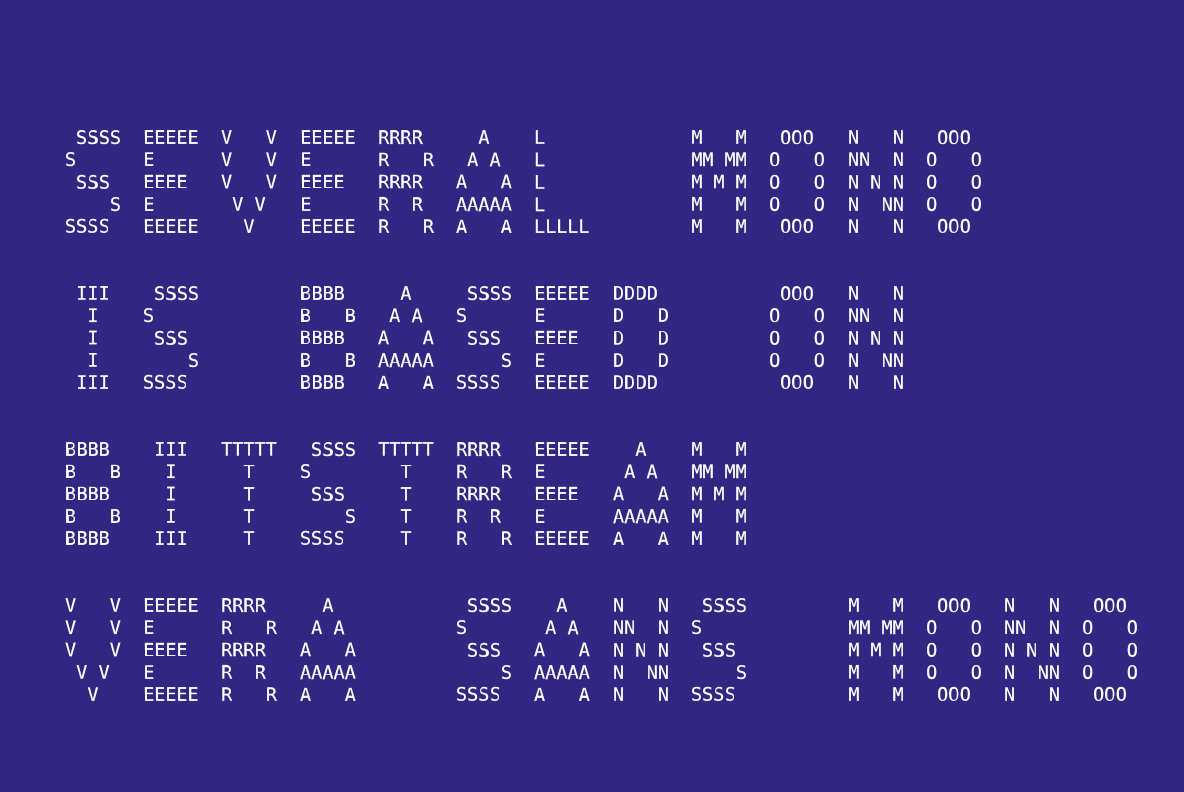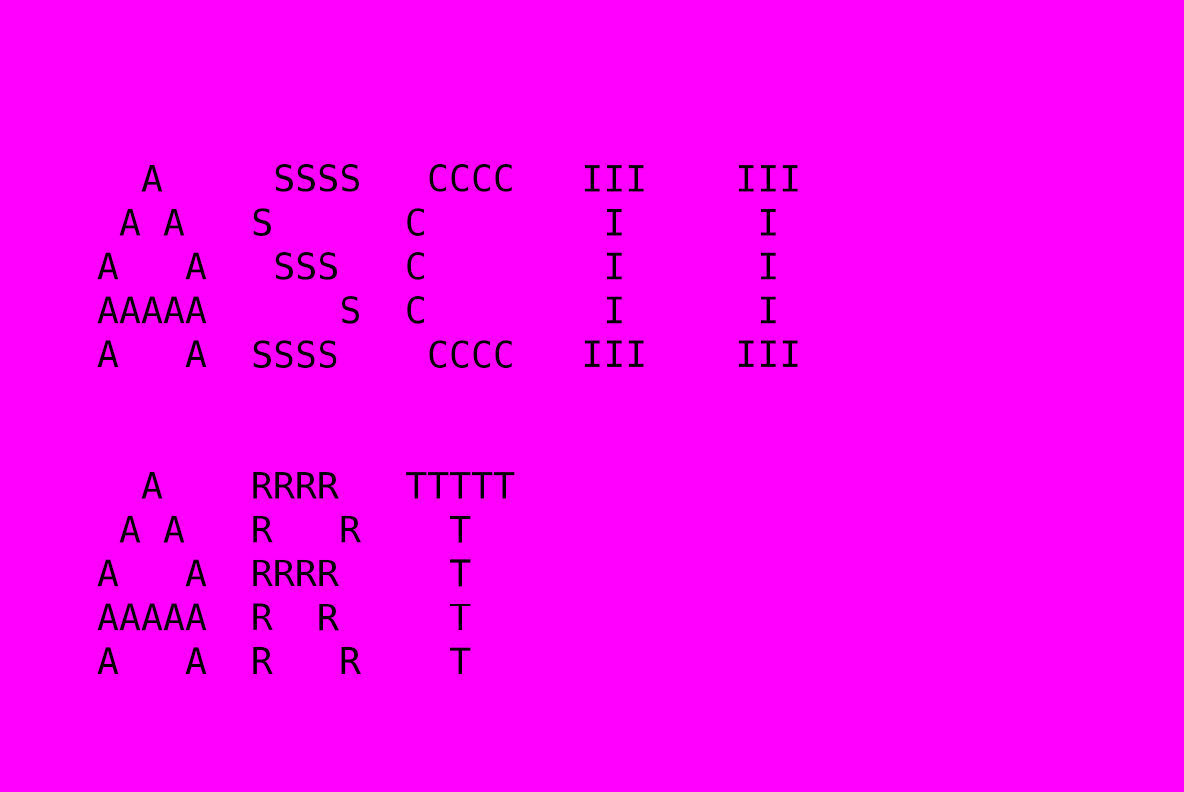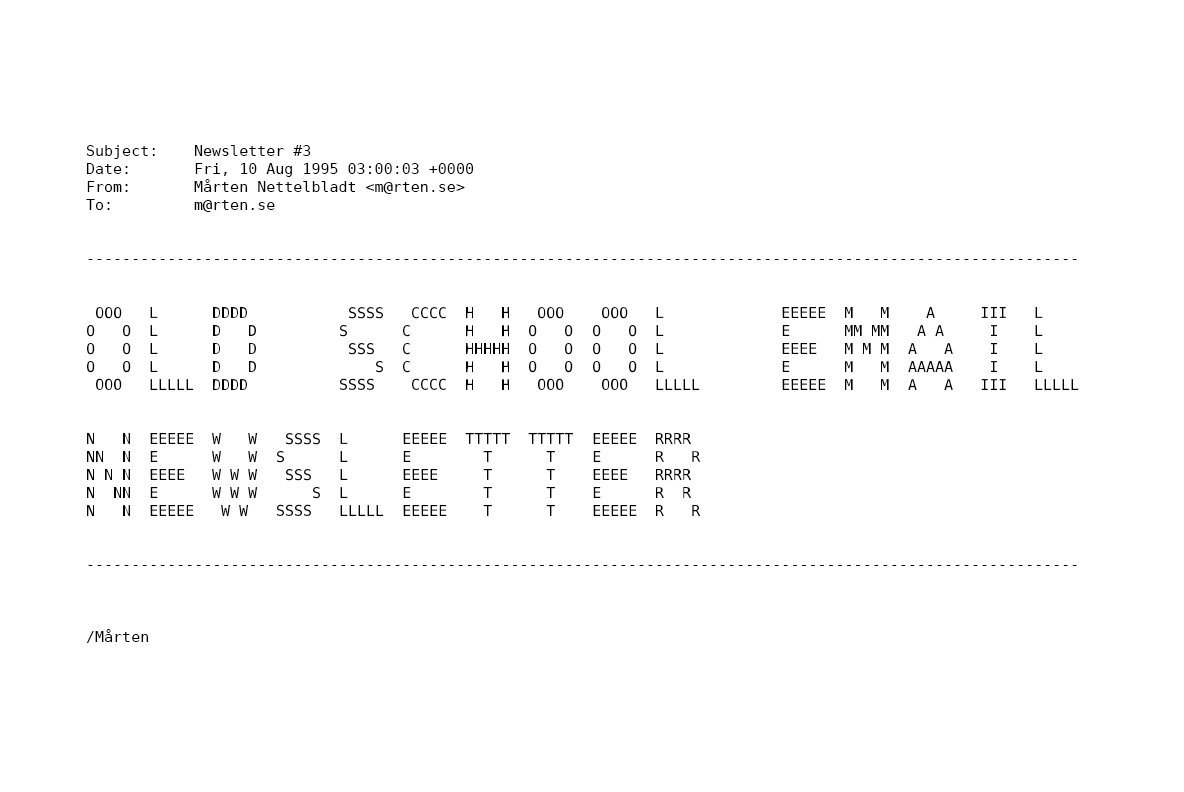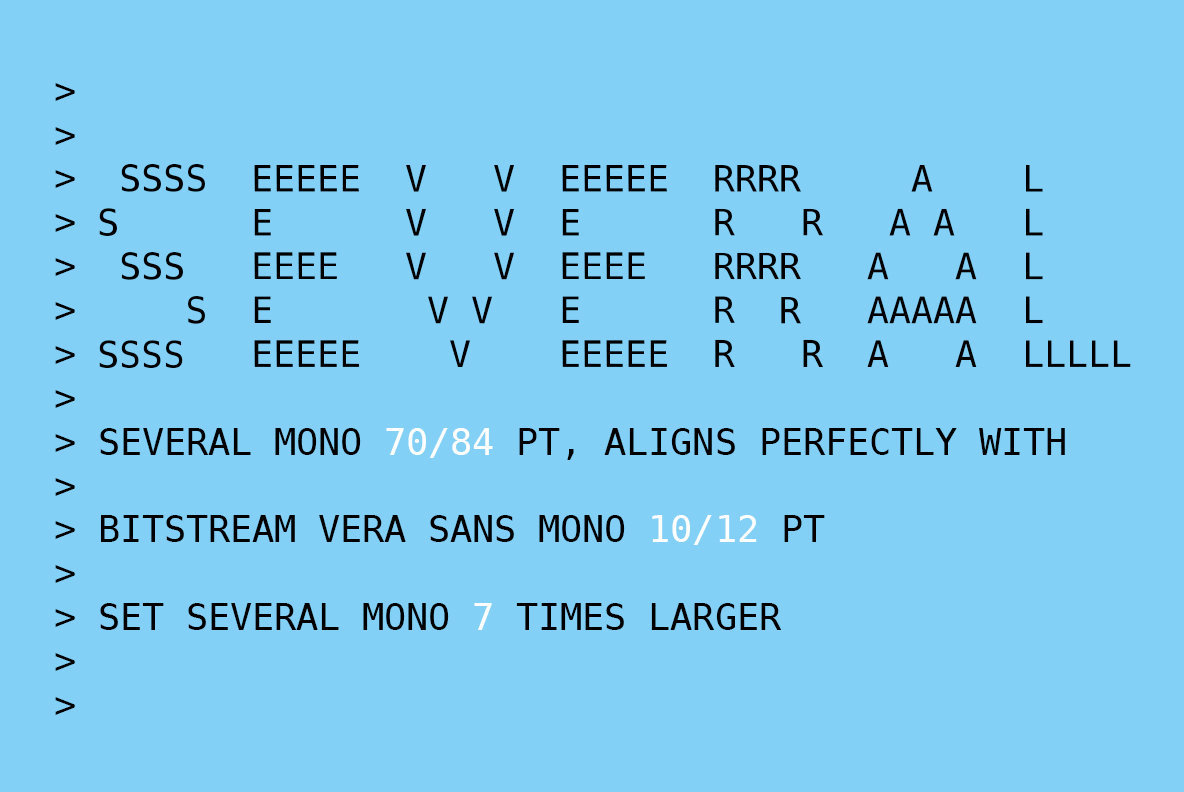
Several Mono 1
Several Mono is a monospaced 5×5 dot matrix typeface in the vein of ASCII Art, based on . When Several Mono is set seven times larger than Vera Sans Mono, the two fonts will align perfectly.